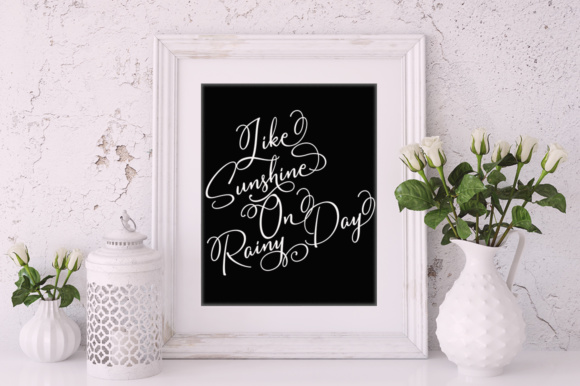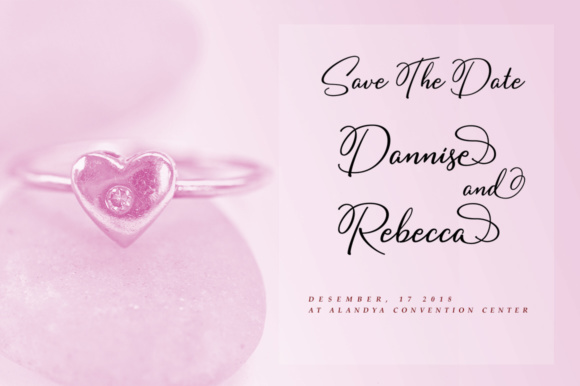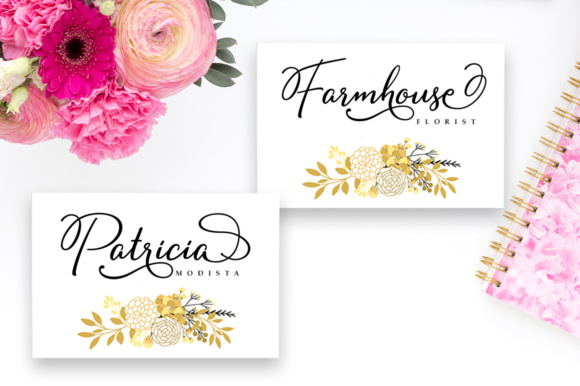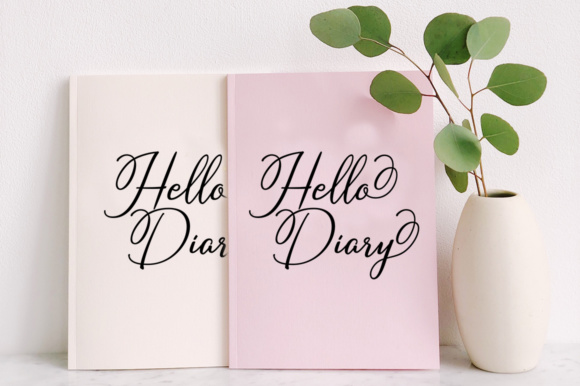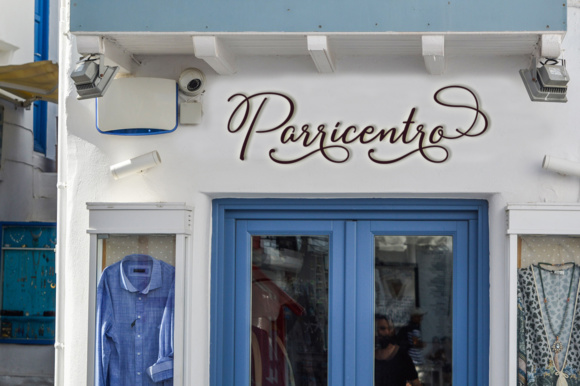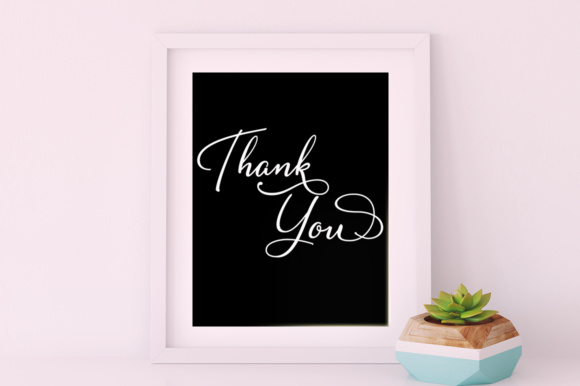
Introducing Dealissha Script Font: Elevate Your Designs with Elegance
Are you a designer or crafter looking for a font that exudes femininity and sophistication? Look no further than Dealissha Script Font. This lovely script font is designed to add a touch of elegance to your designs, making it perfect for a variety of creative projects. In this article, we’ll dive into the features and benefits of Dealissha, and explore how you can use it to take your designs to the next level.
The Feminine Touch of Dealissha
Dealissha Script Font is a beautiful, handwritten font that boasts a distinctly feminine feel. Its flowing curves and delicate lines make it an ideal choice for designers who want to add a touch of whimsy and romance to their work. Whether you’re creating wedding invitations, branding materials, or digital content, Dealissha is sure to impress.
Built with OpenType Features
One of the standout features of Dealissha is its use of OpenType features. This advanced font technology allows you to access a range of typographic features, including ligatures, stylistic alternates, and swashes. With Dealissha, you can easily toggle between the regular font and swashes to create a unique, handwritten look that’s both professional and eye-catching.
Beginning and Ending Swashes for Added Elegance
Dealissha includes a range of beginning and ending swashes that can be used to add an extra touch of elegance to your designs. These swashes can be easily accessed using OpenType features, allowing you to customize your text to suit your design needs. Whether you want to add a subtle flourish or a more dramatic sweep, Dealissha’s swashes have got you covered.
Toggle Between Regular and Swashes Font
One of the best things about Dealissha is its versatility. With the ability to toggle between the regular font and swashes, you can create a range of different looks to suit your design style. Want a more formal, professional look? Use the regular font. Want to add a touch of whimsy and flair? Switch to the swashes font. The choice is yours.
Dealissha Script Font is a perfect choice for designers and crafters who want to add a touch of elegance and sophistication to their work. Whether you’re creating digital content, print materials, or handmade crafts, Dealissha is sure to impress. Its feminine feel and versatile design make it an ideal choice for a range of creative projects, including:
- Branding materials and logos
- Digital content, such as blog posts and social media graphics
- Handmade crafts, such as cards and gift tags
Tips for Using Dealissha Script Font
In conclusion, Dealissha Script Font is a beautiful and versatile font that’s perfect for designers and crafters who want to add a touch of elegance and sophistication to their work. With its feminine feel, OpenType features, and range of beginning and ending swashes, Dealissha is sure to impress. Whether you’re creating digital content, print materials, or handmade crafts, Dealissha is an ideal choice for a range of creative projects. So why not give it a try and see the difference it can make in your designs?